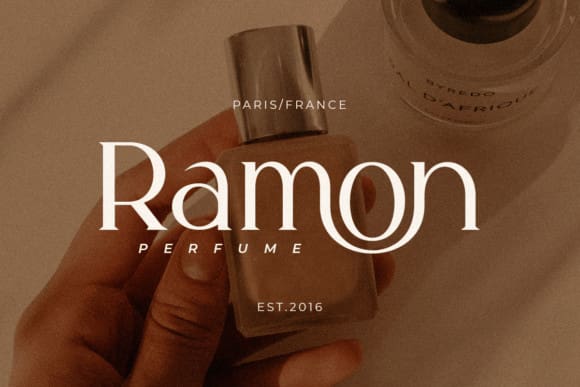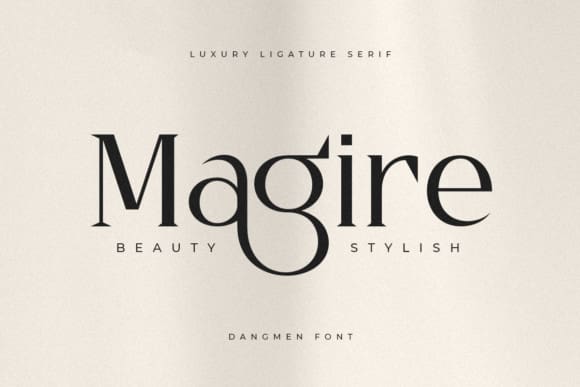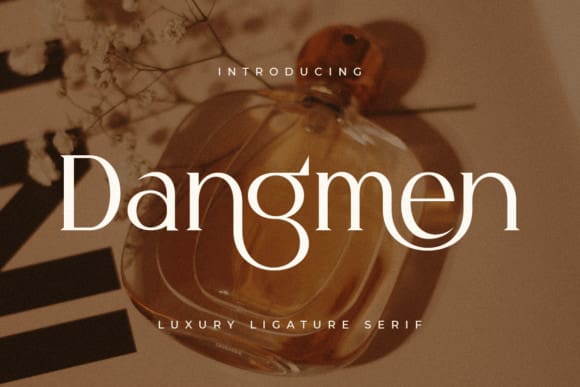
Dangmen Font
Dangmen Font is an elegant serif font, that features a very delicate and classy look. Not too thin and not too thick, balanced and varied, Dangmen was designed to enhance the beauty of your projects